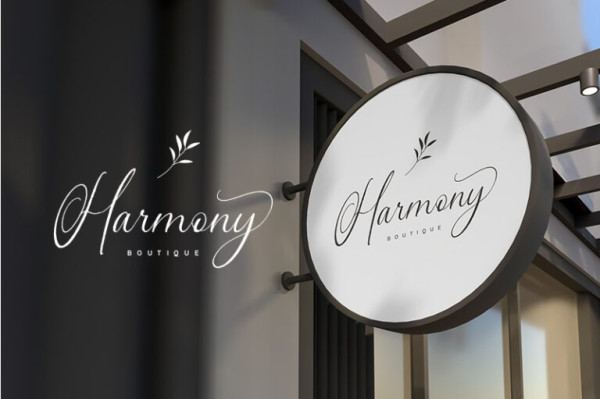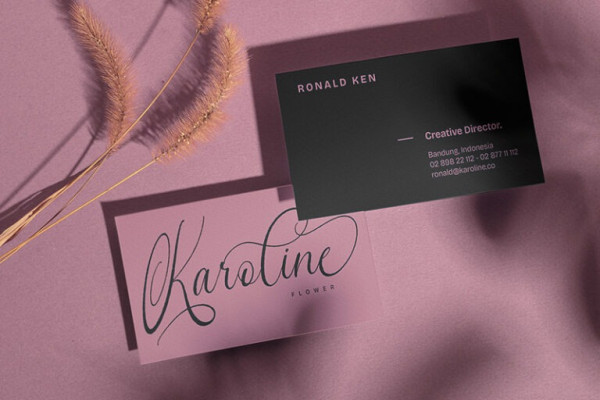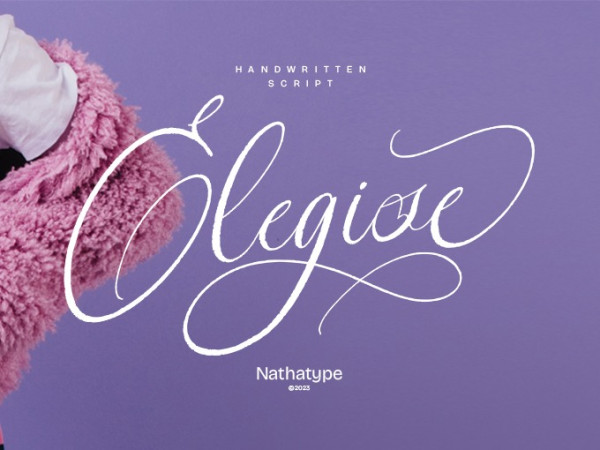
Elegise Font
Elegise Font is a captivating script font that gracefully captures the essence of cursive handwriting with a touch of elegance. This typeface exudes an air of sophistication and refinement, making it perfect for projects that require a stylish and polished look. Each letter in this font is meticulously crafted with high contrast, adding a dynamic and eye-catching quality to the font.
The combination of thick and thin strokes creates a sense of fluidity and movement, adding a touch of liveliness to your typography. The long swinging endings in some letters of Elegise Font bring a sense of graceful flair and drama to the font.
These charming details add a touch of elegance and uniqueness, making the script come to life with a sense of poise and grace. For the best legibility you can use this font in the bigger text sizes. Enjoy the available features here.